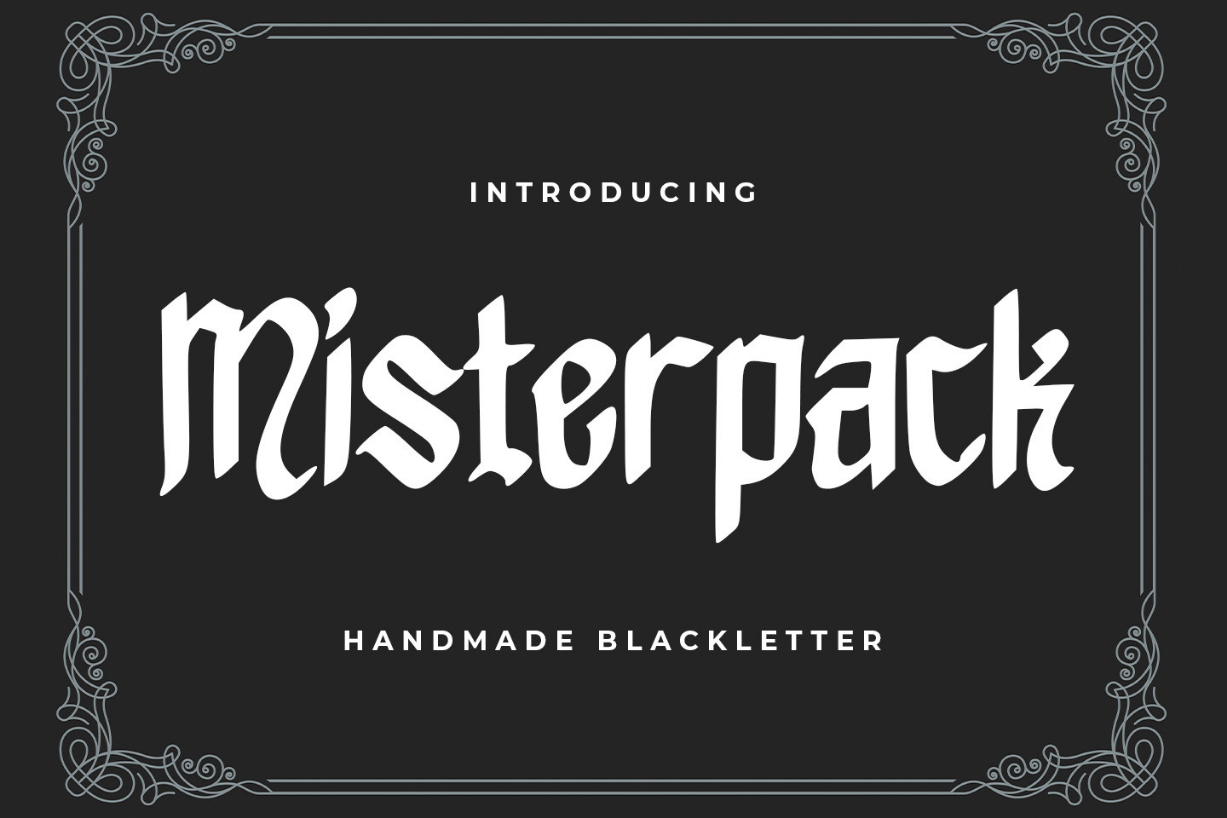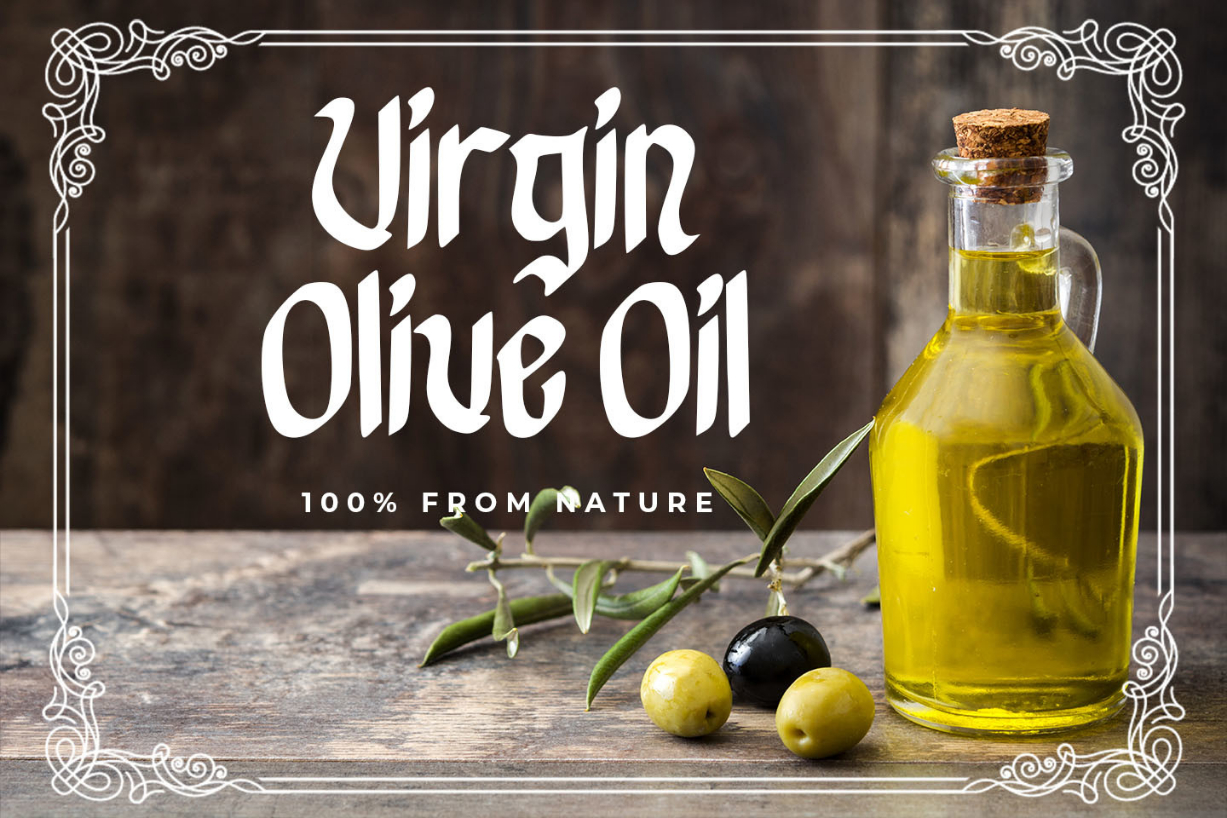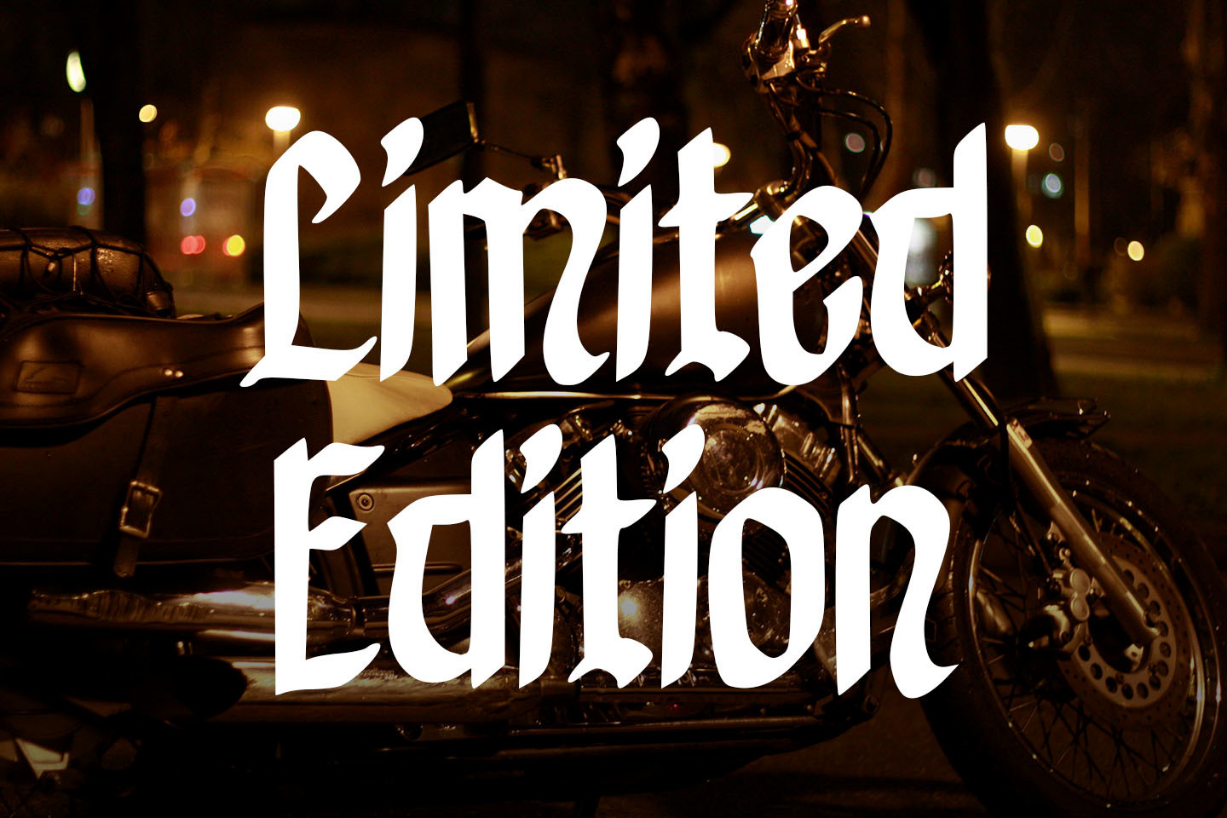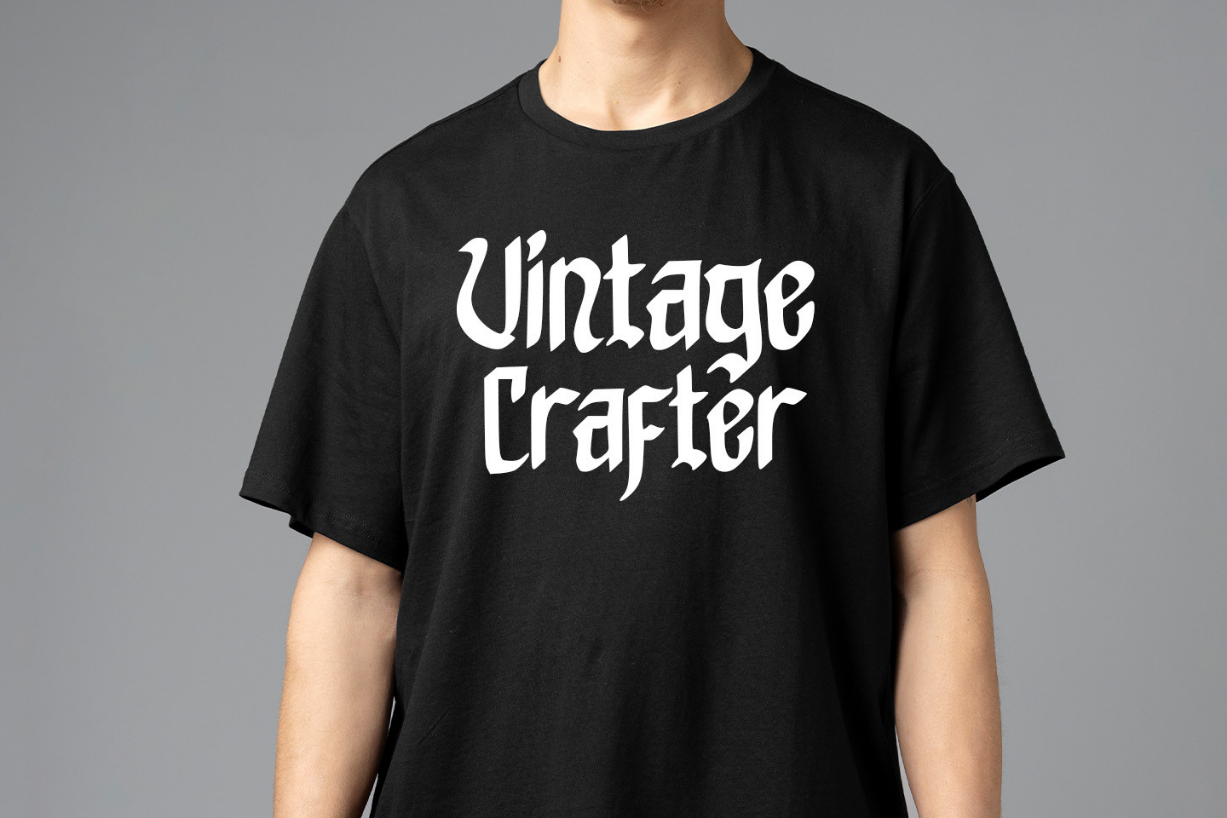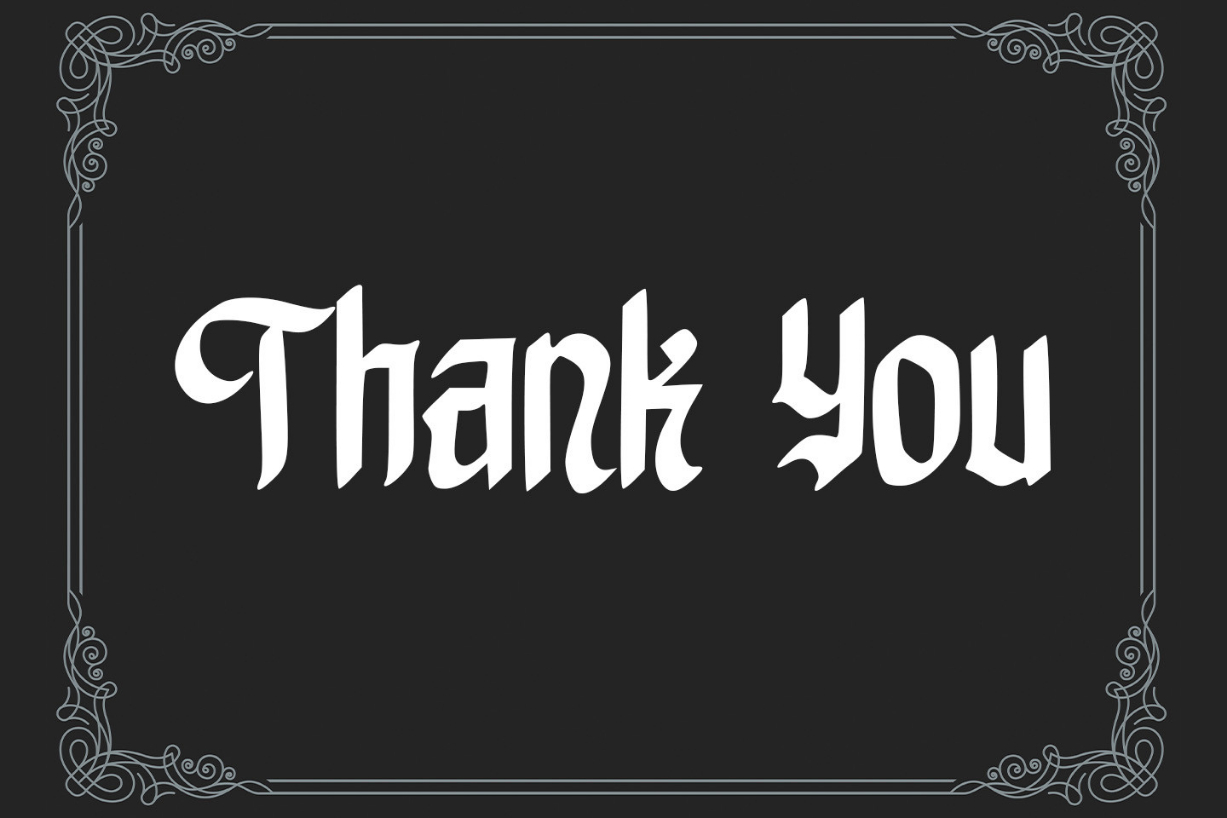
Misterpack Font
About Misterpack Font
Misterpack is a bold and thick lettered blackletter font. Add it confidently to your projects, and you will love the results.